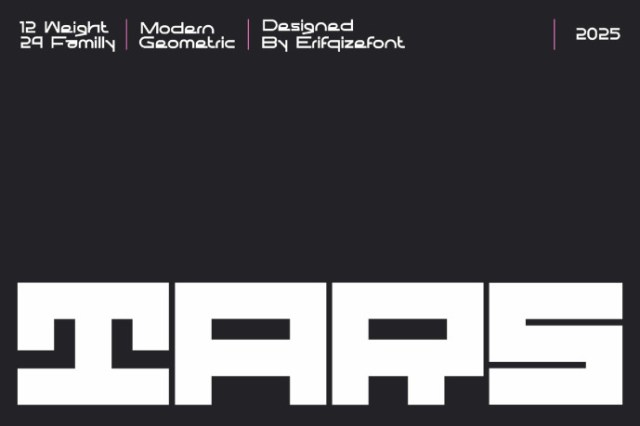
Tars Display Font
Tars Display Font is a futuristic display font family defined by sharp geometric cuts and brutalist aesthetics. Its bold, modular forms create a strong, unconventional voice—perfect for standout headlines, logos, and ultra-modern branding.
With 24 styles (12 uprights + 12 italics), ERF Tars offers expressive flexibility—from the subtle Whisper to the commanding Doom. Each character is crafted for maximum impact while maintaining legibility and rhythm. Whether for tech brands, posters, or UI design, ERF Tars brings structure and personality to every project.